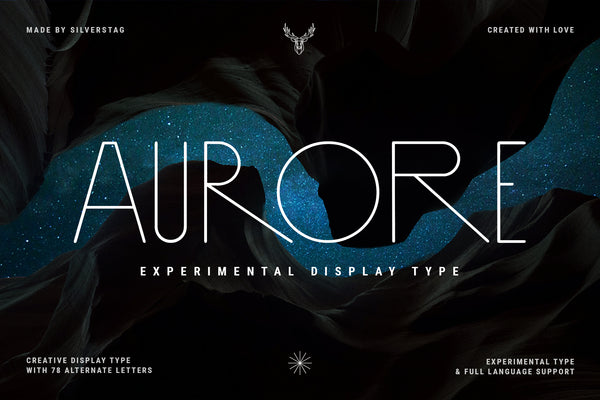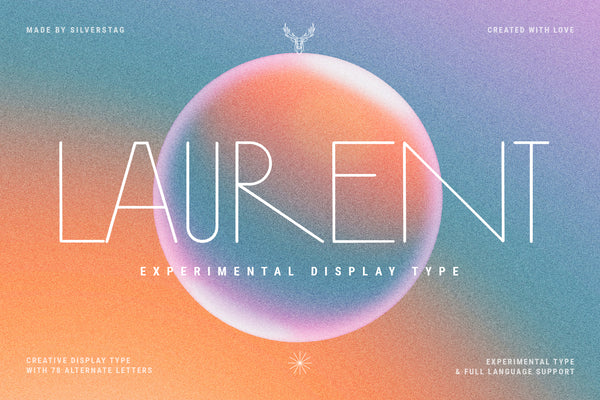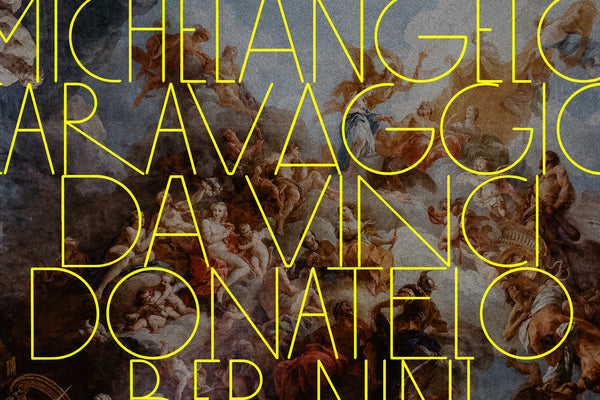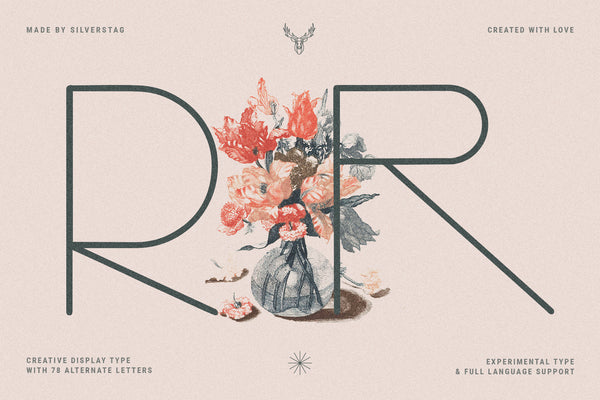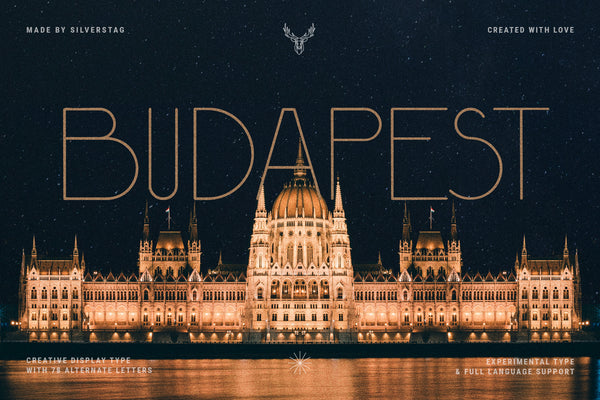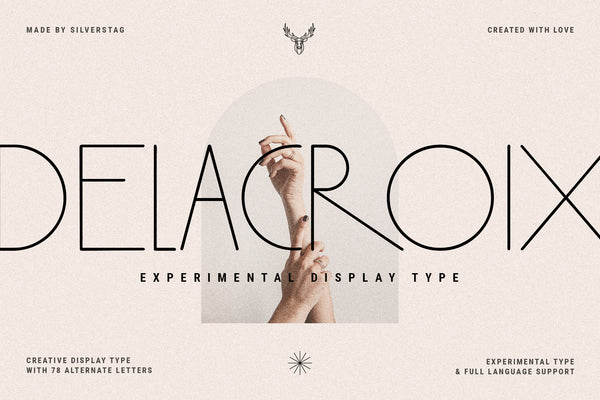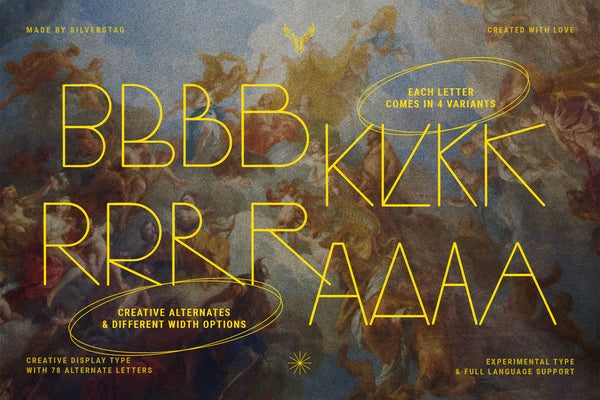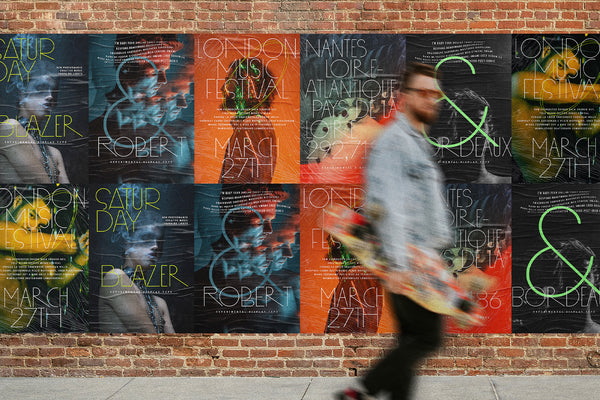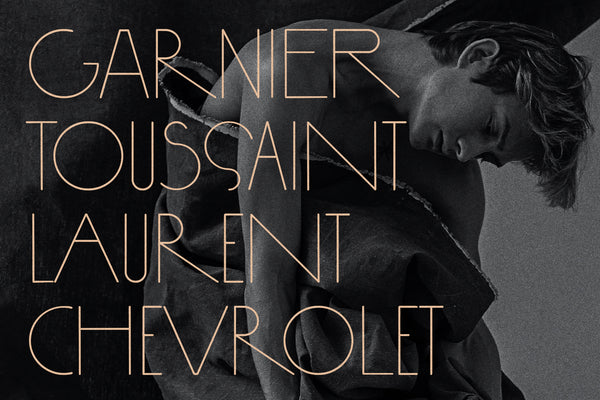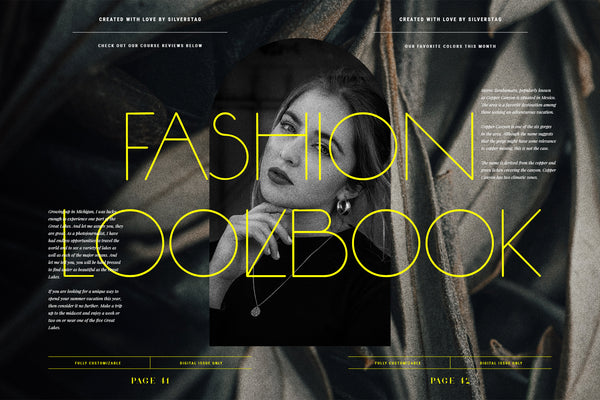
Introducing Aurore, a daring and sophisticated experimental display font inspired by the timeless elegance of Art Deco. Rooted in the visual arts, architecture, and design styles that first flourished in France, Aurore brings geometric precision, bold structure, and creative flair into your modern design projects.
This stylish typeface is packed with three distinct alternate versions for every letter, offering a total of 104 unique capital letters. Whether you’re looking to create eye-catching headlines, distinctive branding, or chic editorial layouts, Aurore allows you to experiment freely and craft typography that stands out.
With its striking design and endless alternate possibilities, Aurore is the perfect choice for projects that demand both innovation and elegance.